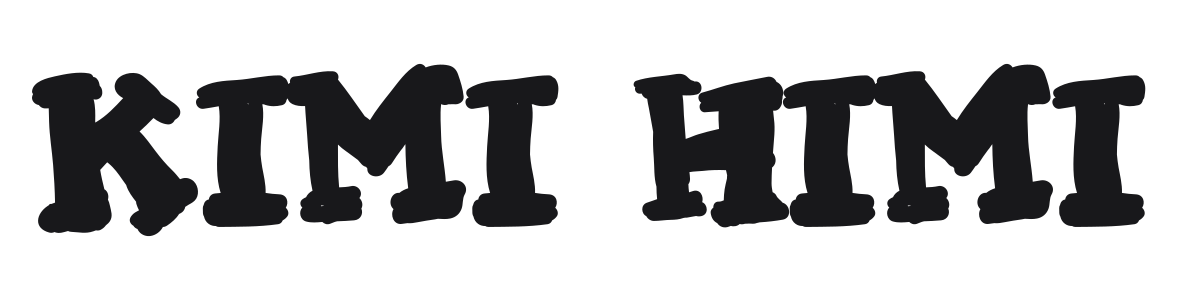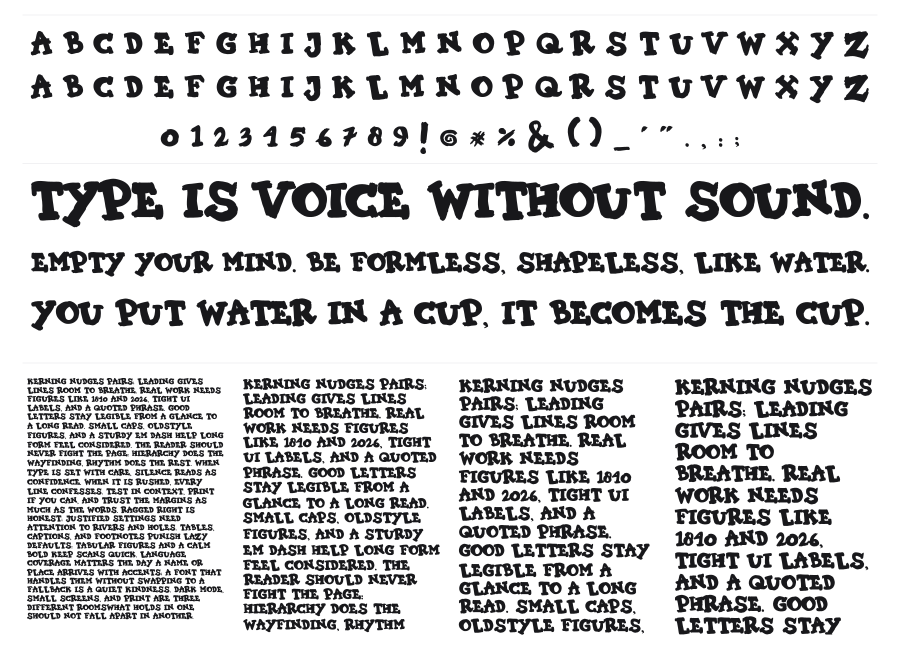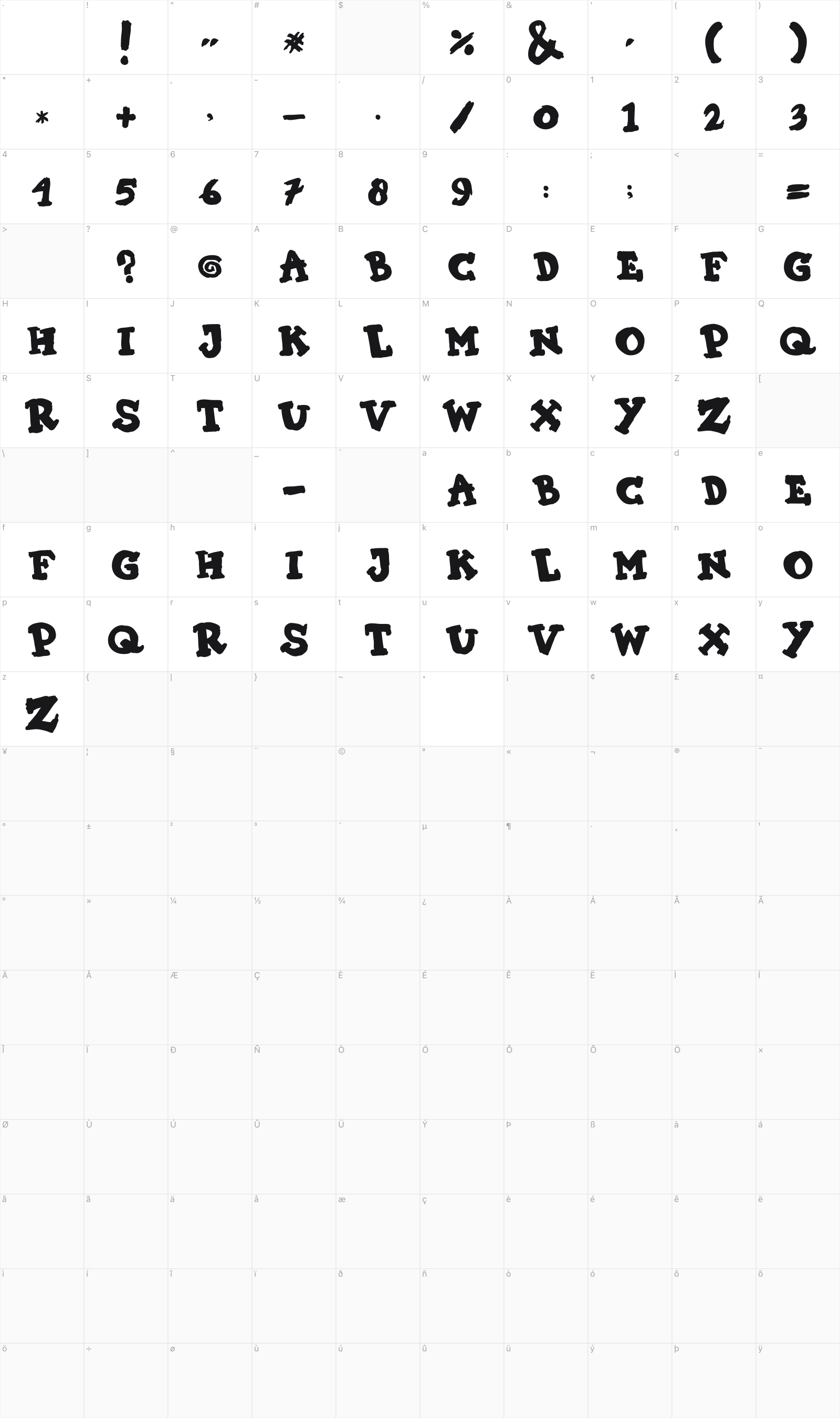
Kimi Himi
Kimi Himi is a heavy hand-drawn serif with thick, rough strokes and chunky irregular serifs that give it an unmistakable comic book energy. The deliberately imperfect construction and textured edges make it feel like something lettered by hand with a wide brush. It shouts at display sizes and suits anything that needs a bold, playful personality.